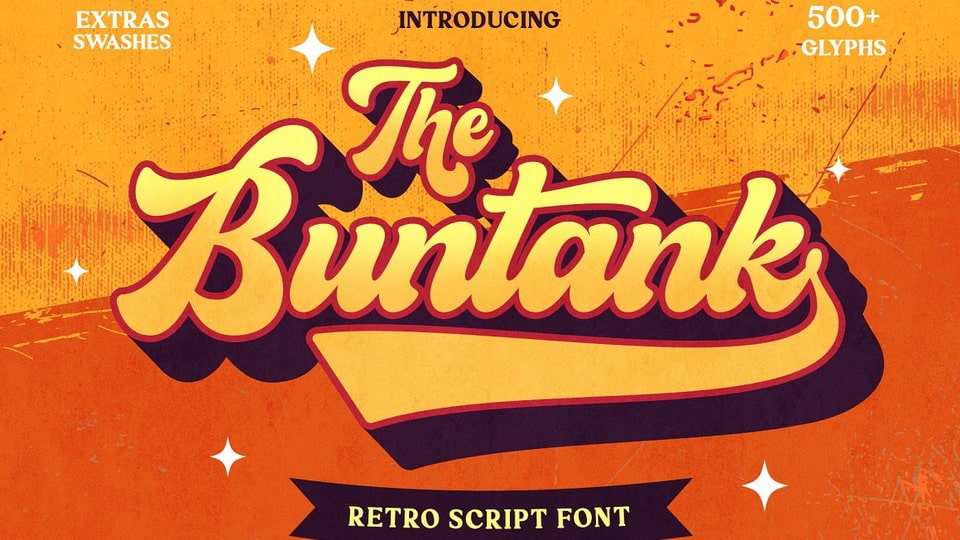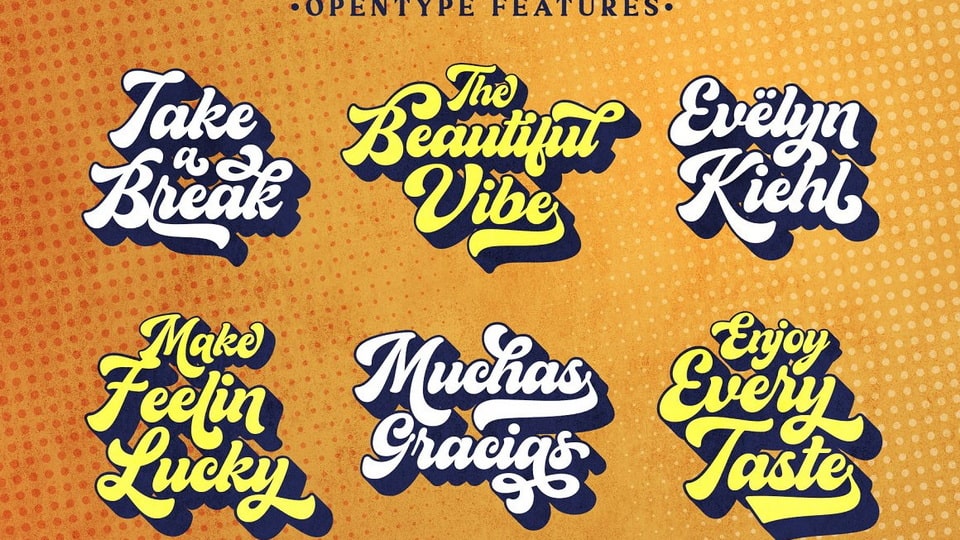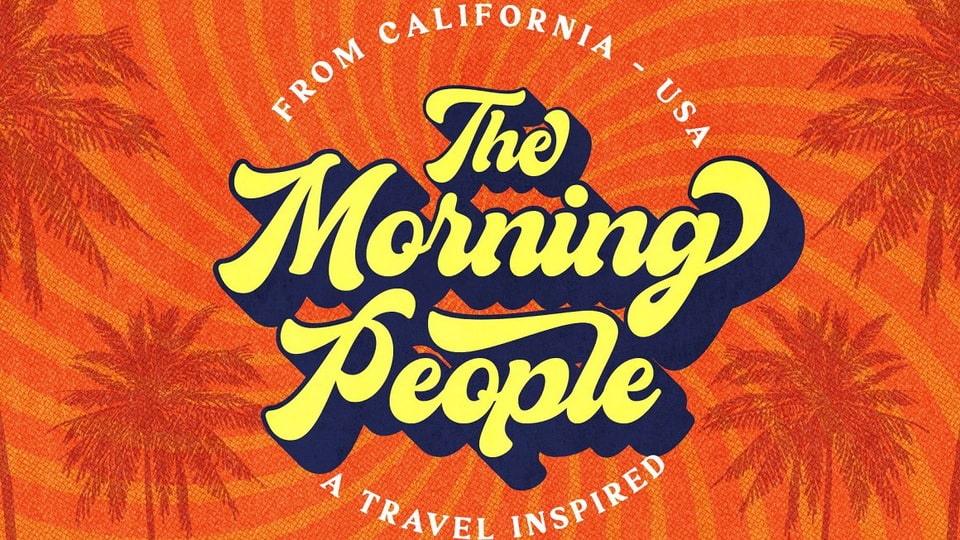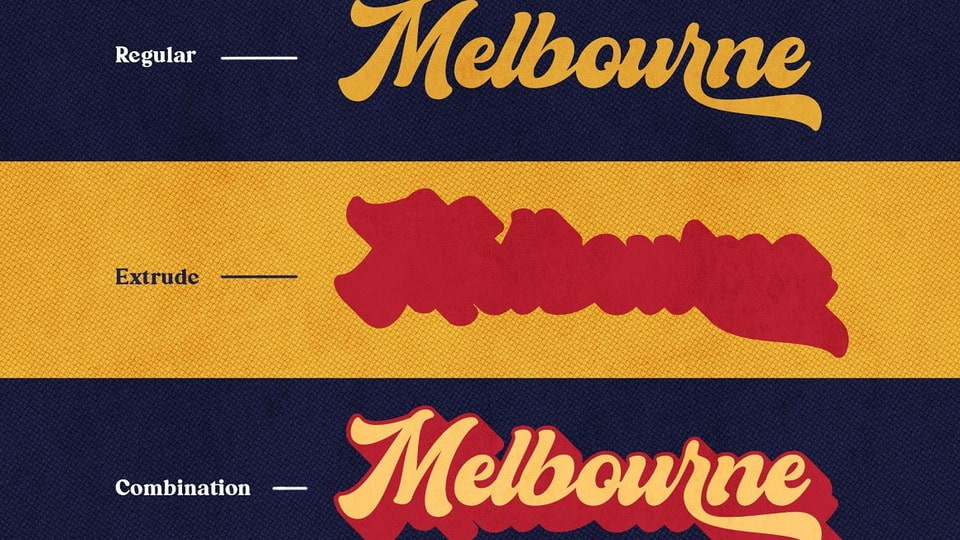
The Buntank is a delightful retro display font carefully crafted with a bold and rounded shape. Truly inspired by retro typography that you can find on posters, logos, or signage.
The Buntank is a perfect choice for merchandise, logos, flyers, decals, signage, storefronts, motion graphics, and more